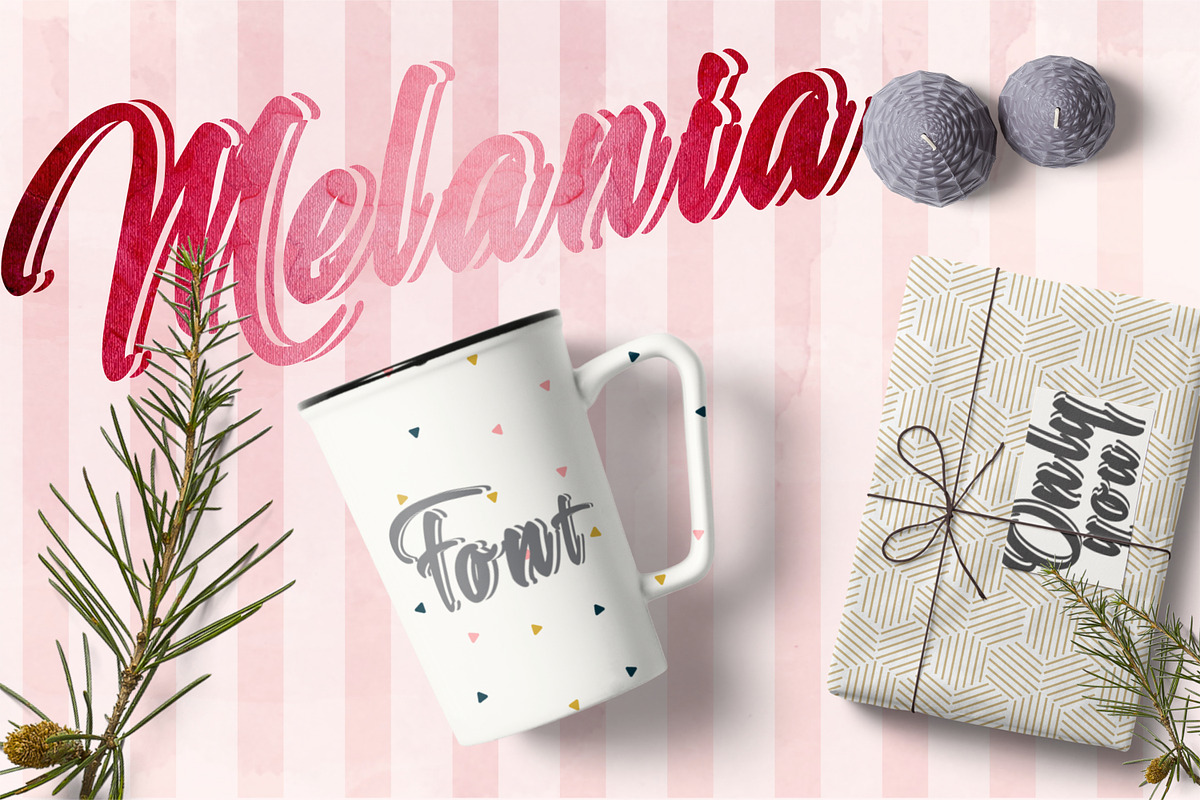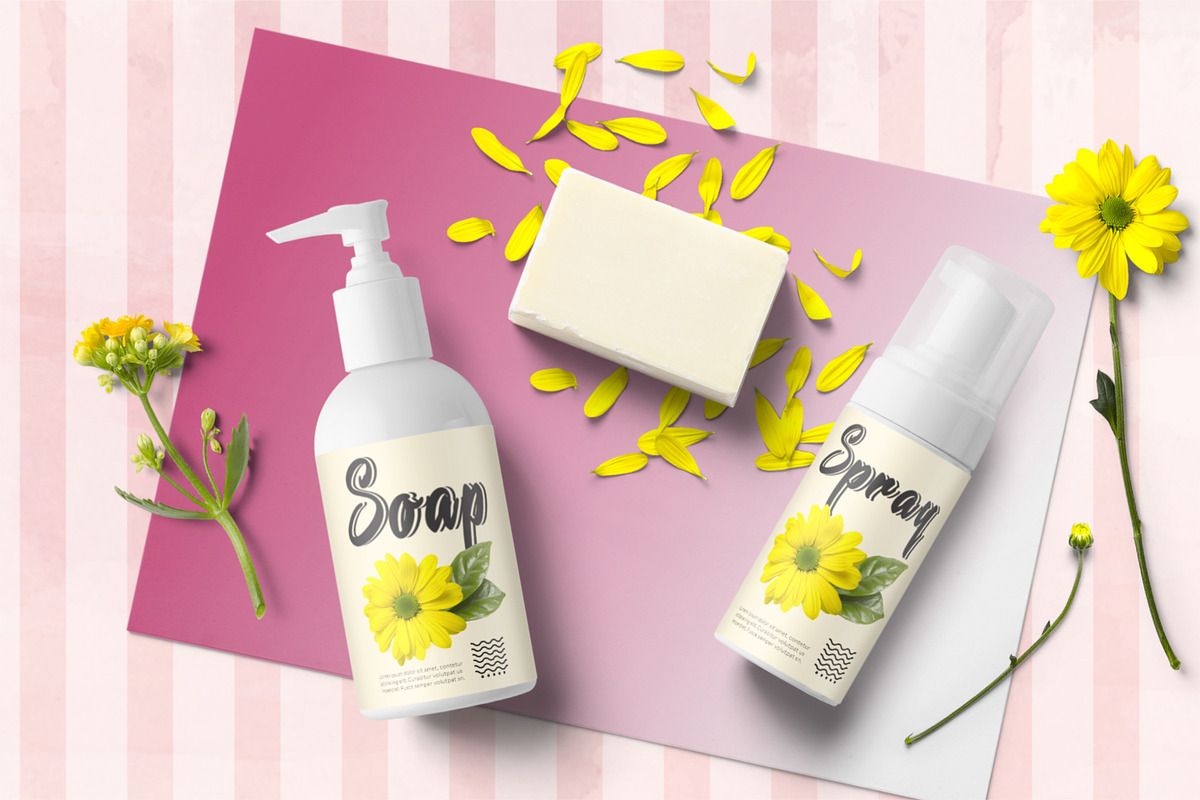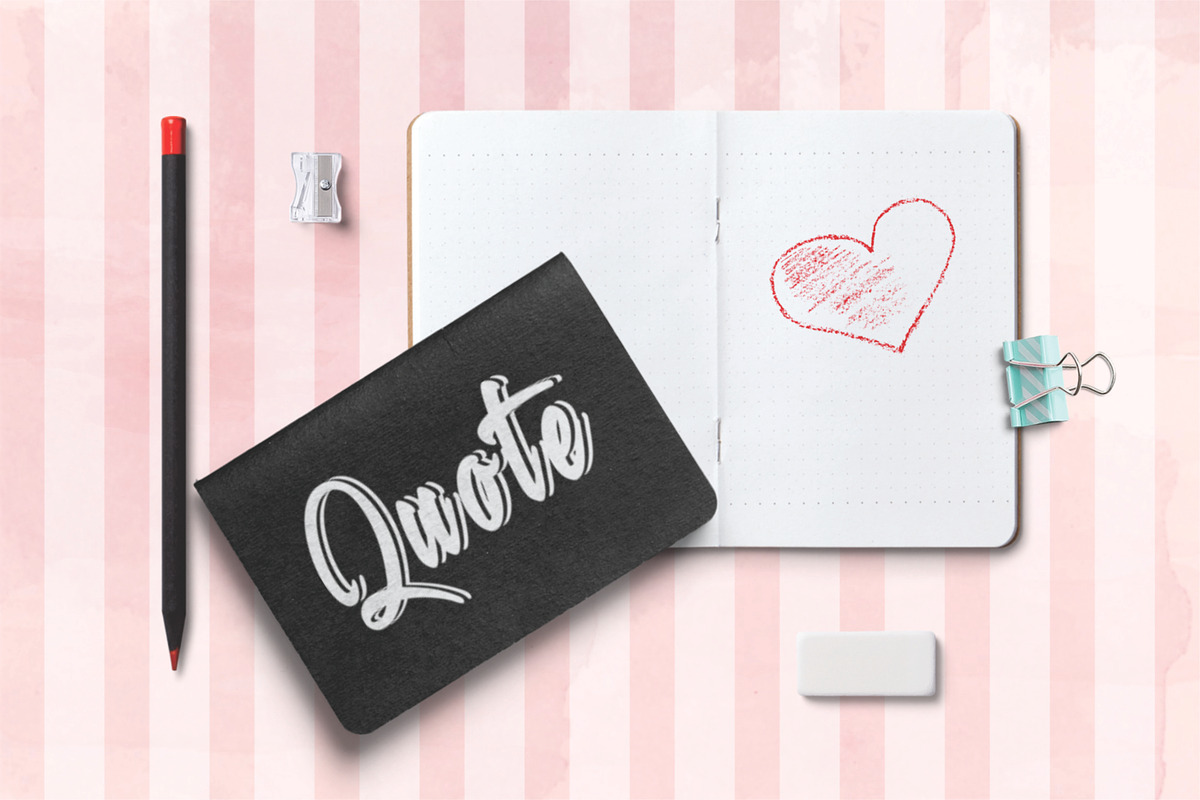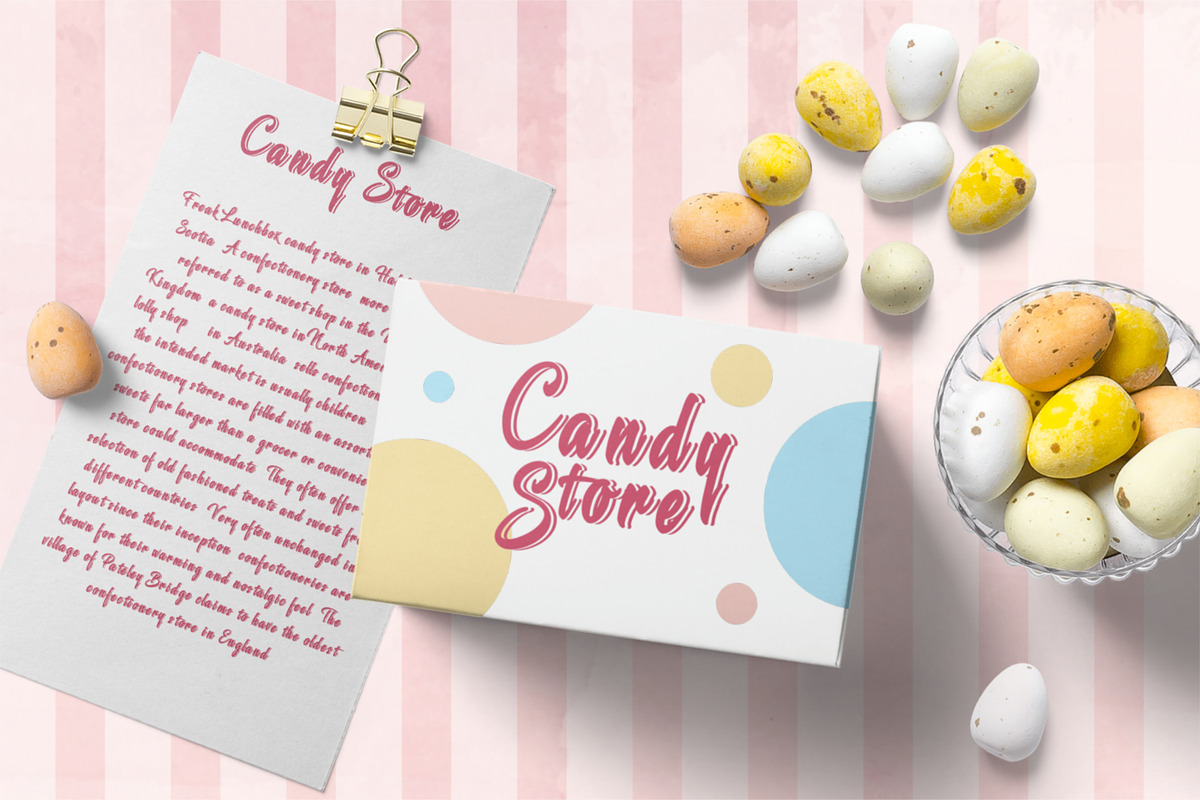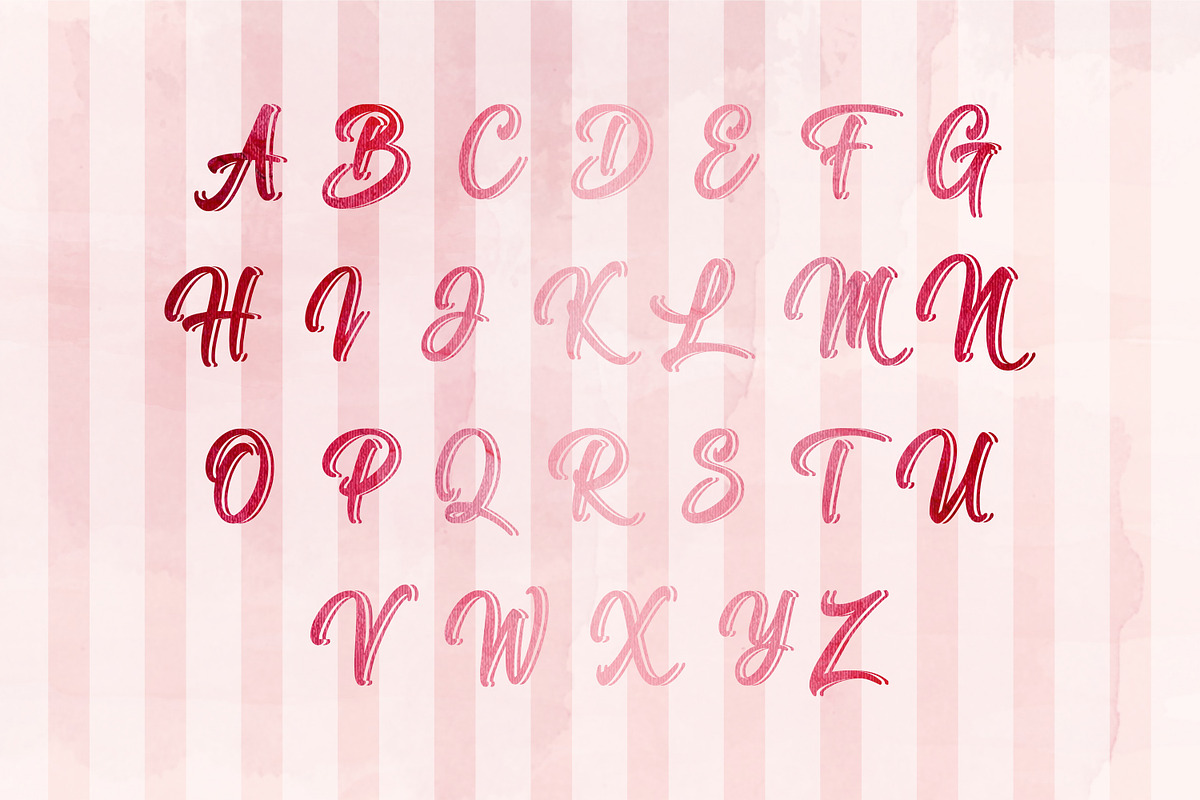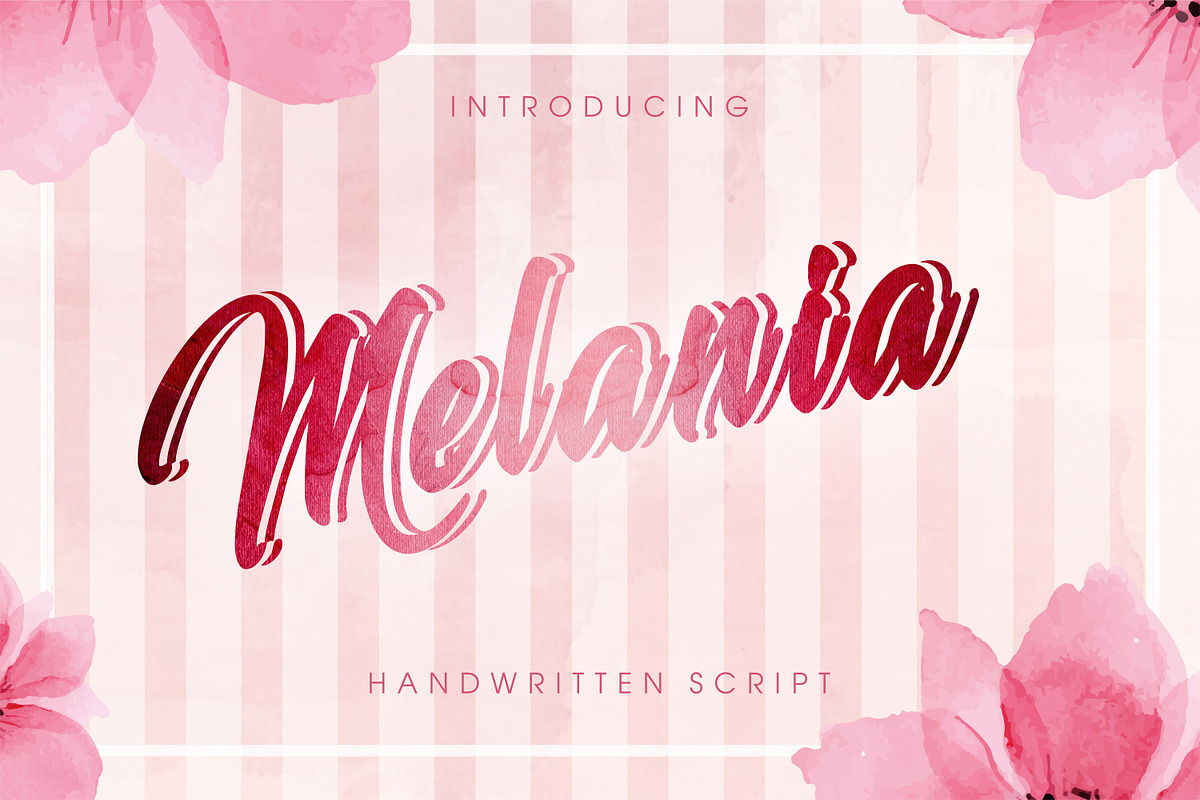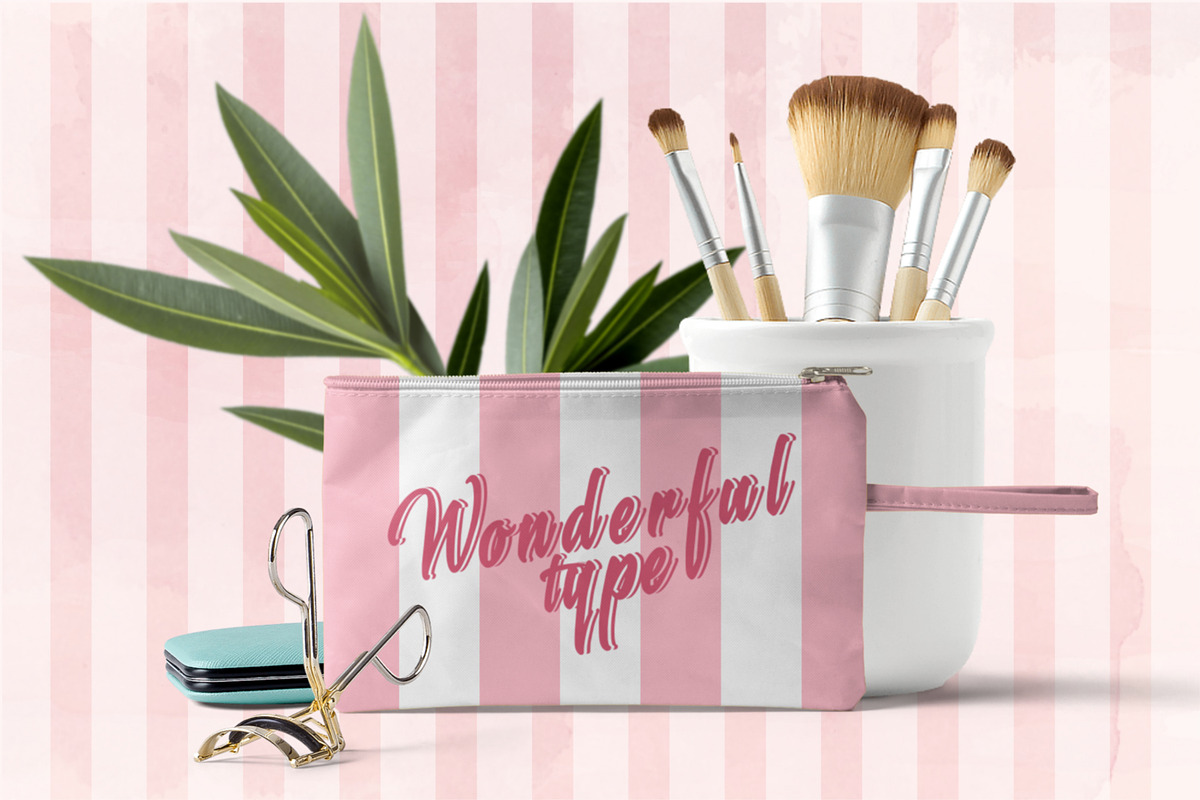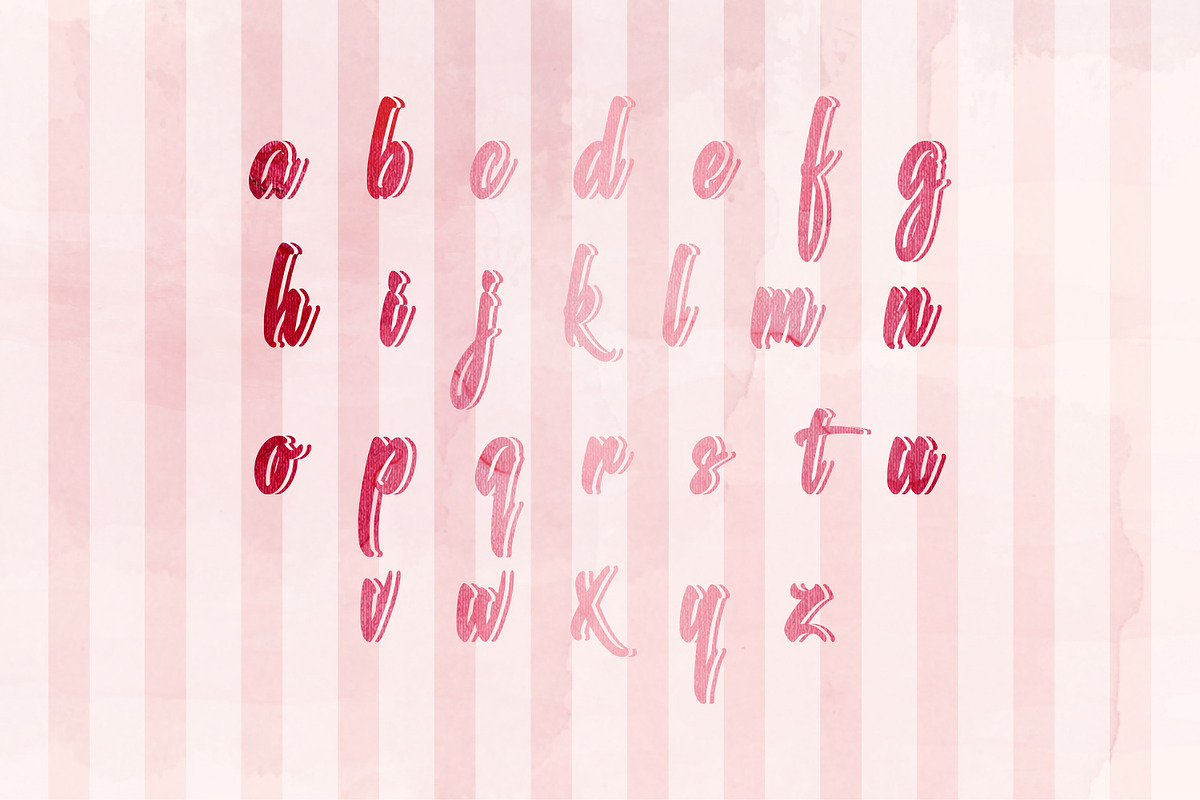
Melania - Beautiful Script
New attractive hand script typeface is out. Visually like lettering, but with possibility to connect to each other as well as letters and other typeface font designs. Concise and structured freehand design with purely handwriting corners of the letters. Beautifully constructed and applicable to many uses limited only by your fantasy. Wide range of use could possibly be from party decoration till invitation letter “body” text; from business lettering till simple absence notice; from design of heading or section in book or newspaper till headline in magazine or even article etc (for more additional and possible designs refer to short list provided below).
Short list of possible uses for inspiration:
Book covers or inside chapters section heading
Posters or postcards design
Party decorations and congratulation cards
Invitation letters and business envelopes
Text headings and graphic themes designs